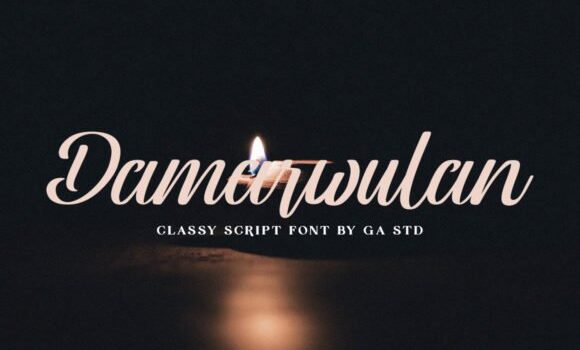
Damarwulan Font – Free Download Introduction to Damarwulan Font Damarwulan is a well-balanced and delicate script font. 📸 Preview Gallery 6 images 📌 Product Name Damarwulan Font 👤 Author Green Adventure Studio 📂 Category Explore ⬇️ Download Damarwulan Font FREE